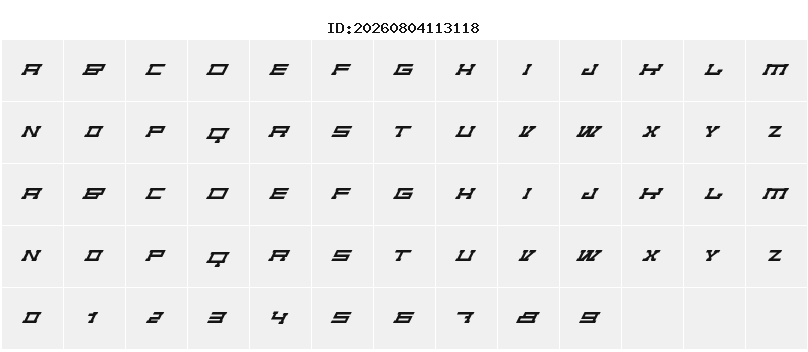
• Font Name: Non Circular
• Font ID: Non Circular:Version 1.00
• Full Font Name: Non Circular
• Version: Version 1.00 April 13, 2011, initial release
• PostScript Name: NonCircular
• Character Count: 98
About Non Circular.ttf
Non Circular.ttf is a modern, elegant sans-serif font designed for ultimate readability and visual harmony. Perfect for branding, headlines, web design, and print materials.